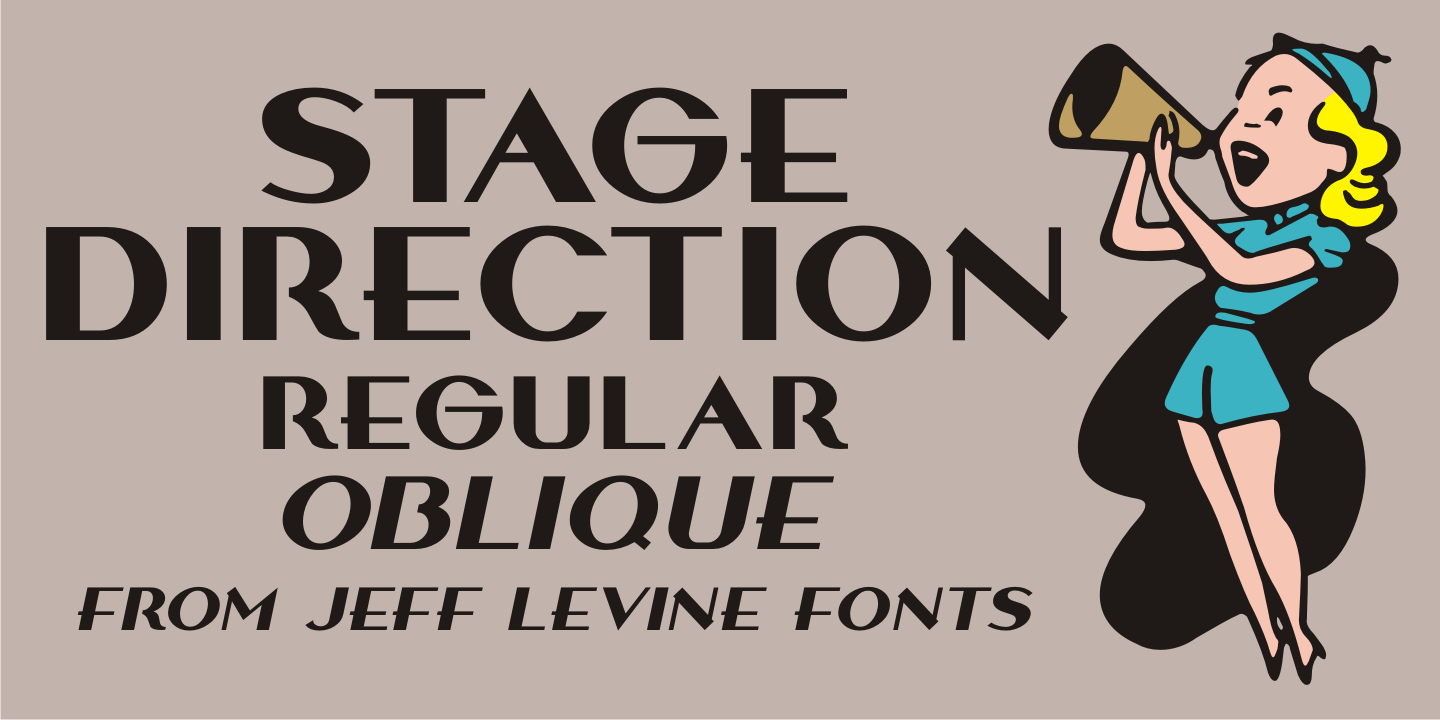
If you're looking for a typeface with vintage charm and theatrical flair, Stage Direction JNL Font Free Download is the perfect pick. Inspired by classic playbills and early 20th-century signage, this font brings a sense of drama and authenticity to posters, programs, branding, and retro-themed designs. It’s bold, it’s expressive, and it sets the stage for impactful visual storytelling.
From old-school charm to eye-catching display use, Stage Direction JNL Font Free Download steals the show with flair and personality.